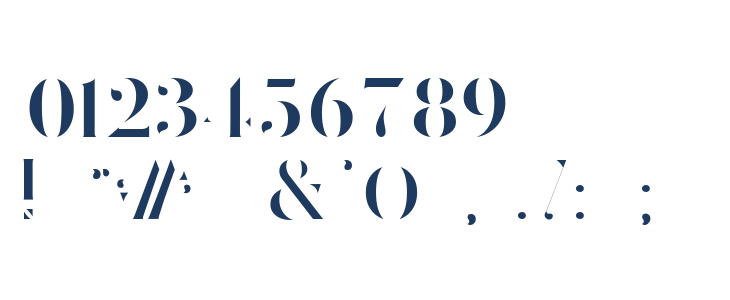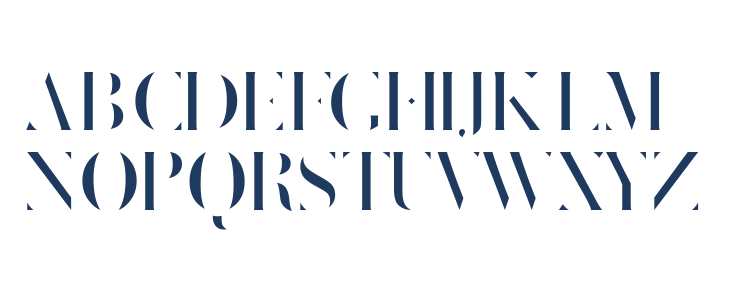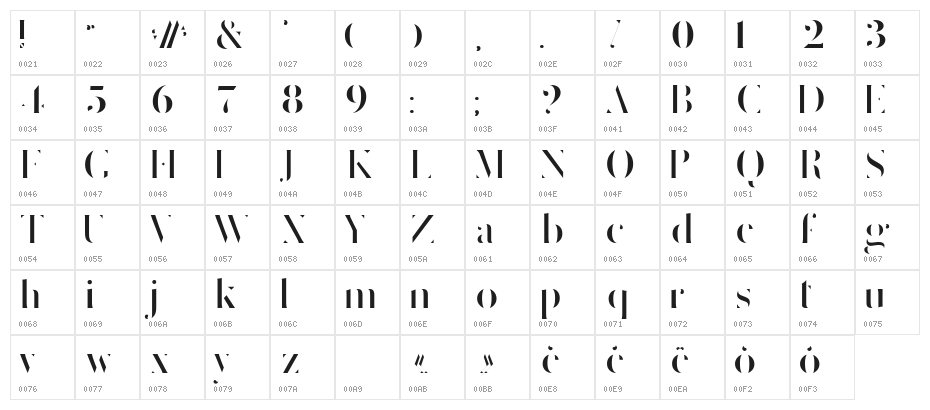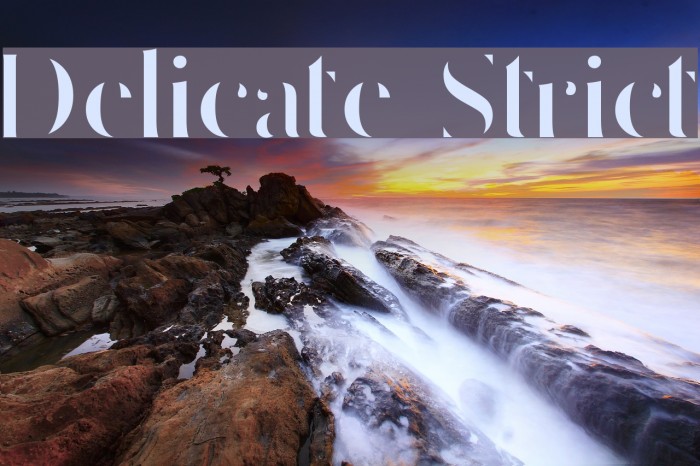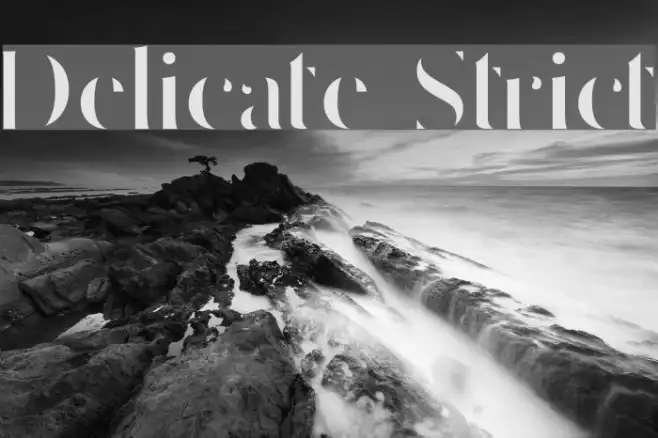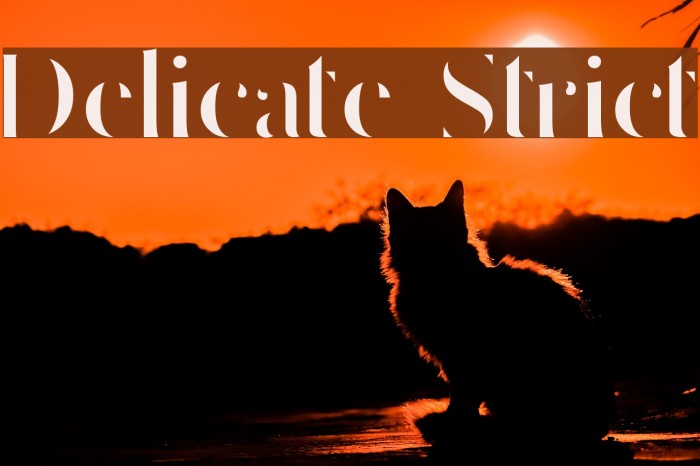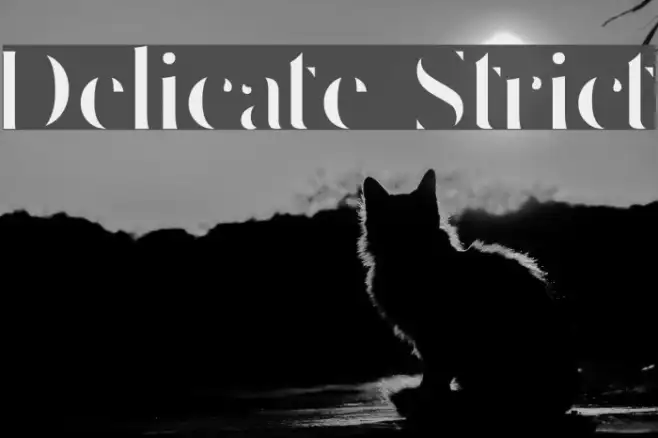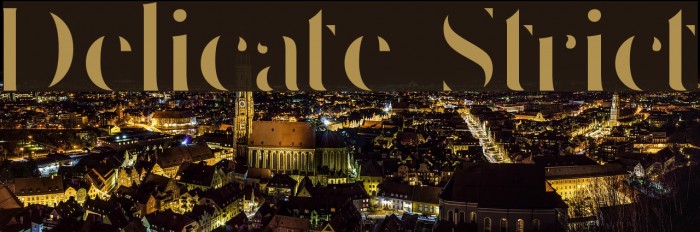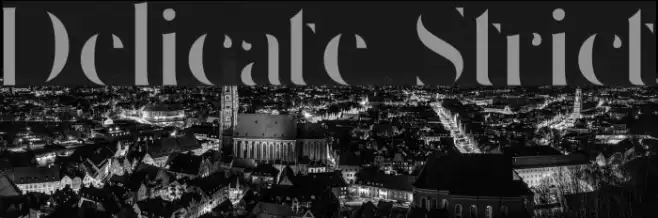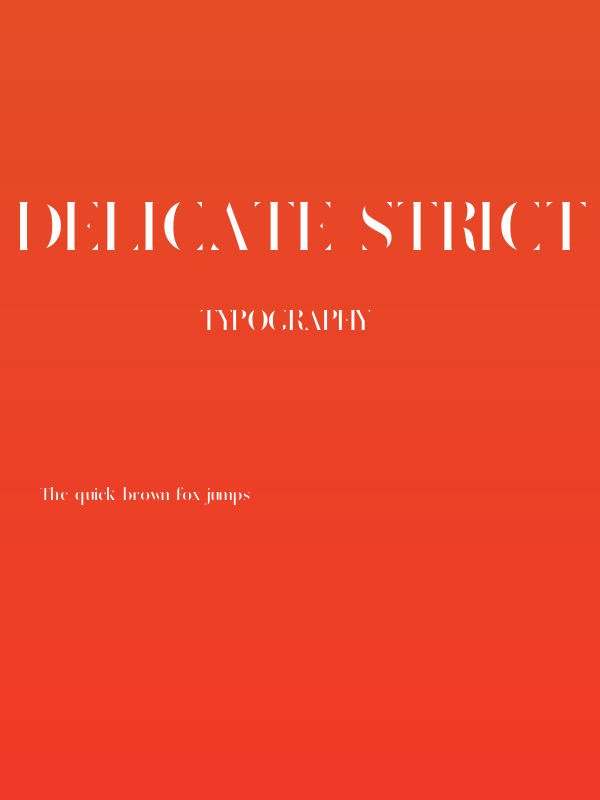
Delicate Strict Font
Delicate Strict Description
This font exhibits a striking and bold stencil-like design, characterized by its sharp, angular cuts and high contrast between thick and thin strokes. The uppercase letters are particularly dramatic, with their geometric precision and distinct gaps that create a modern, industrial feel. The lowercase letters maintain this aesthetic, offering a cohesive look across the typeface. Numbers and special characters are equally bold, ensuring consistency throughout. The overall design is both decorative and functional, making it suitable for a variety of creative applications.
| Proposed Projects | Ideal for branding, poster design, packaging, and any project requiring a modern, industrial aesthetic. |